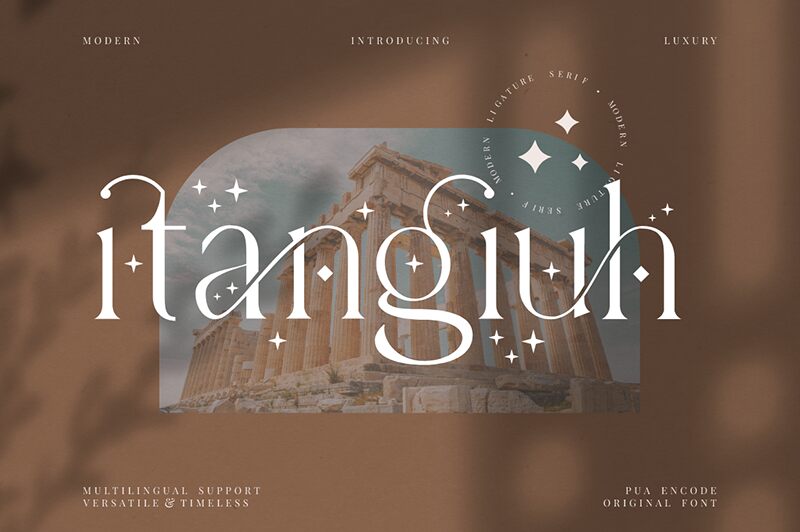
Itangiuh font is a free display handwriting font designed by FinTypeStudio. This slender typeface has smooth and stylish characters with rounded terminals which give it a neutral look. Although created for display purposes at large sizes, Itangiuh can be used in some limited body text contexts.
The font, although free, can have a spectacular impact on branding designs (especially typography-based logos), packaging, graphic design, invitations, and more. A use in social media typography-based banners/posts, printed magazines or newspapers is also possible.